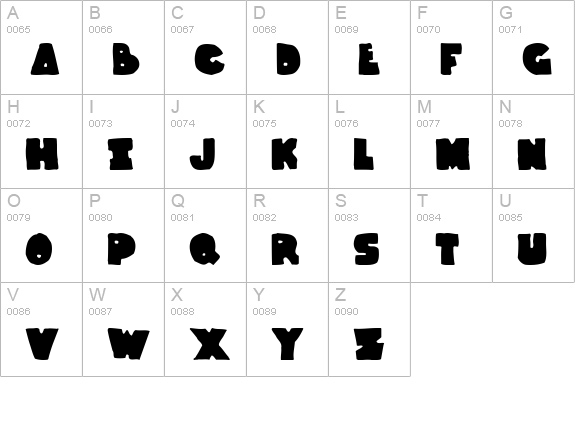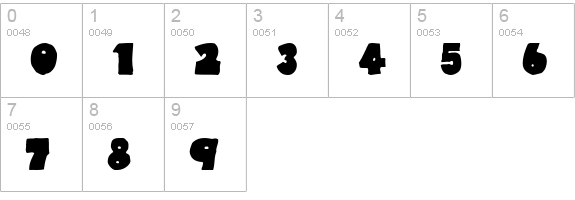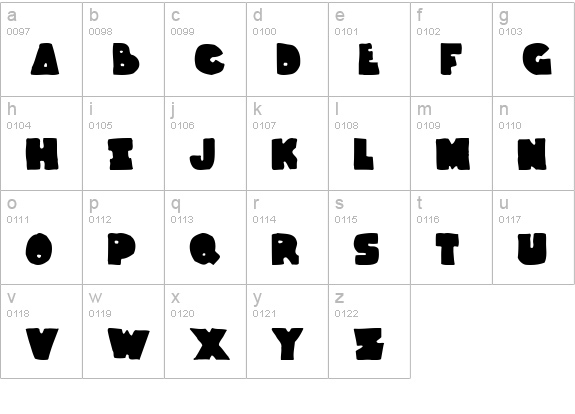
Introducing Thunder Thighs, a bold and powerful font that exudes confidence and strength. With its thick, impactful letterforms, this typeface commands attention and makes a statement. Designed with a unique blend of curves and angles, Thunder Thighs strikes the perfect balance between elegance and boldness. Whether you're designing a poster, branding materials, or a website, Thunder Thighs is sure to make a lasting impression. Its versatility allows it to be used for a variety of projects, from fashion and beauty to sports and fitness. This font is the perfect choice for anyone looking to add a touch of energy and excitement to their designs. One of the best things about Thunder Thighs is that it is free. Yes, you read that right! This amazing font is freely available to download at FontsMarket.com. Now you can create stunning designs without breaking the bank. With Thunder Thighs, you have the power to make a statement and stand out from the crowd, all while staying within your budget. So, what are you waiting for? Head over to FontsMarket.com and download Thunder Thighs today. Unleash your creativity and let this font take your designs to new heights. With Thunder Thighs, the possibilities are endless.